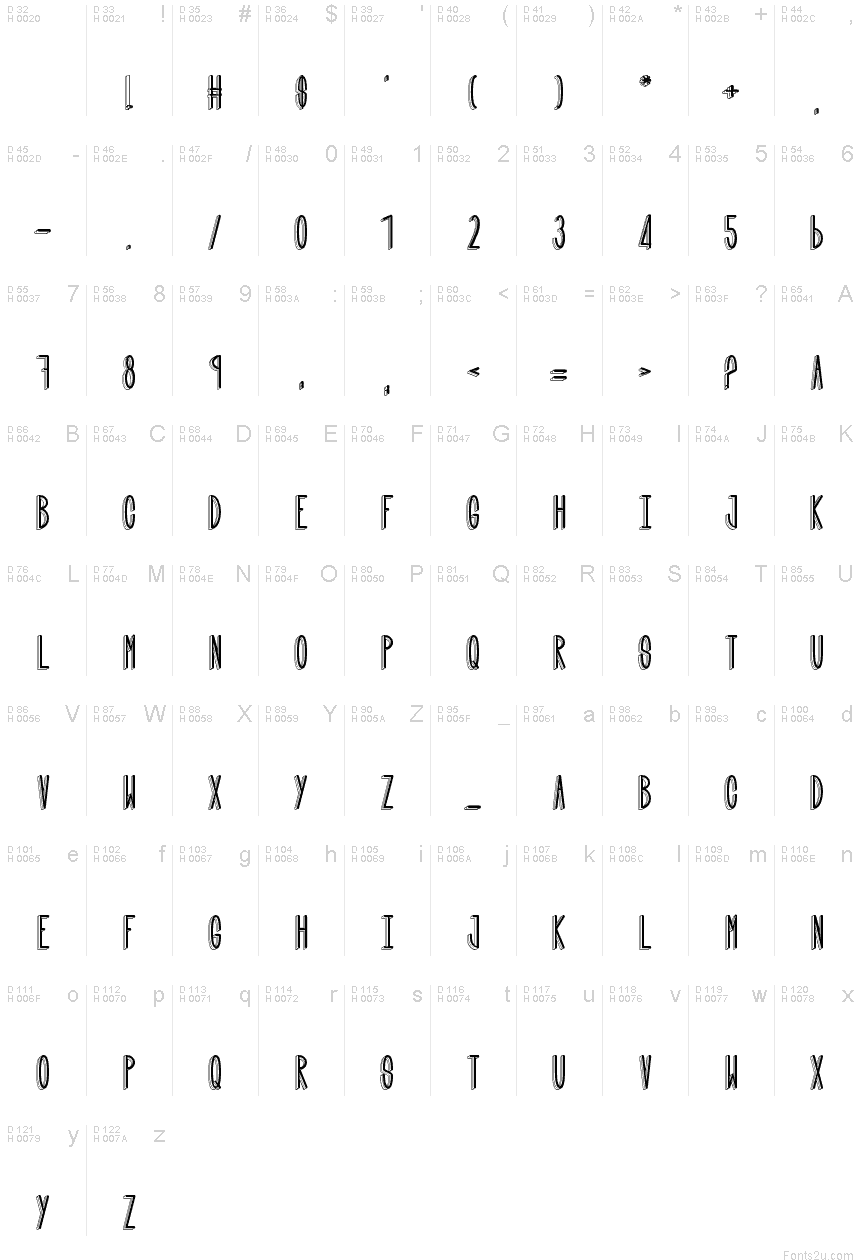
Quand tu n'es pas là is a free retro 3D display font with tall, narrow capitals and theatrical outlines. Repeated inner lines and offset dark strokes give the letters the look of layered sign painting. The curved forms stay slender, with slight irregularities that keep the construction from feeling mechanical.
A cabaret, cocktail bar, or vintage fashion label could use its elongated lettering for a glamorous period cue, and it also suits music posters and event graphics. The doubled contours can become part of a package's border or emblem, tying the name directly to its retro product identity.
Quand tu n'es pas là